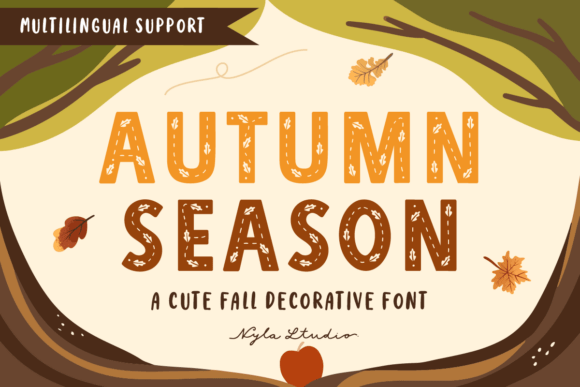
The Perfect Font for Cozy Autumn Nights
As I sat by the fireplace, sipping hot cider and watching the leaves change colors outside, I felt a sudden urge to create something warm and inviting. The crunch of leaves beneath my feet and the smell of pumpkin spice in the air inspired me to dig out my design software and get creative. I wanted to capture the essence of the season in a font that would transport anyone who saw it to a cozy autumn night.
That’s when I stumbled upon the AUTUMN SEASON font – a cute and playful decorative font that’s perfect for any project that needs a dash of seasonal charm. With its versatility and charm, this font is a must-have for designers looking to add a personal touch to their designs.
Whether you’re working on a circuit project, designing a Christmas invitation, or creating a playful quote, the Autumn Season Font is sure to add a touch of warmth and personality to your design.
Autumn Season Font Key Features
- Font Family: Autumn Season Font is a custom-designed font family, perfect for adding a touch of autumnal charm to your designs.
- Character Count: The font family consists of 400 characters, including uppercase and lowercase letters, numerals, and special characters.
- Unique Characteristics: Autumn Season Font features unique, hand-drawn designs with intricate details and subtle texture, evoking the feeling of fallen leaves and cozy autumn evenings.
Autumn Season Font Review
As a designer, I was excited to try out the Autumn Season Font, and I must say it’s a unique and charming addition to any design project. ✨ The font’s intricate details and organic feel make it perfect for fall-themed designs, and it’s sure to grab the viewer’s attention.
One of the standout features of this font is its versatility. ✨ It can be used for a wide range of applications, from invitations to social media graphics, and it looks great in both bold and delicate forms. ✨ The font’s texture and subtle imperfections also add a touch of authenticity, making it feel more handmade than digital.
While the Autumn Season Font has a lot of potential, there are a few limitations to consider:
- ⚠️ The font may be too ornate for some designs, and it can be difficult to read at small sizes.
- ⚠️ The font’s texture can also make it difficult to edit or manipulate in certain design software.
Overall, I would recommend the Autumn Season Font to designers looking for a unique and eye-catching addition to their projects. While it may have some limitations, the font’s charm and versatility make it well worth the investment. With a little creativity and experimentation, I’m confident that designers can get the most out of this beautiful font.
Tips for Getting the Most Out of the Autumn Season Font
Use the Autumn Season Font in combination with autumn-themed images and graphics to create a cohesive and seasonal design.
Experiment with different font sizes, colors, and arrangements to achieve a unique and eye-catching effect.
Use the font in conjunction with other design elements, such as leaves, acorns, and pumpkins, to create a festive and autumnal atmosphere.
The Autumn Season Font is ideal for:
Designing seasonal invitations, greeting cards, and party decorations.
Creating autumn-themed marketing materials
Q: What is the recommended font size and line height for the Autumn Season Font?
The recommended font size for the Autumn Season Font is between 12pt and 18pt, depending on the context and intended use. For body text, we recommend a line height of 1.2-1.5 times the font size to ensure readability and aesthetics. For headings and titles, you can use a larger font size and adjust the line height accordingly.